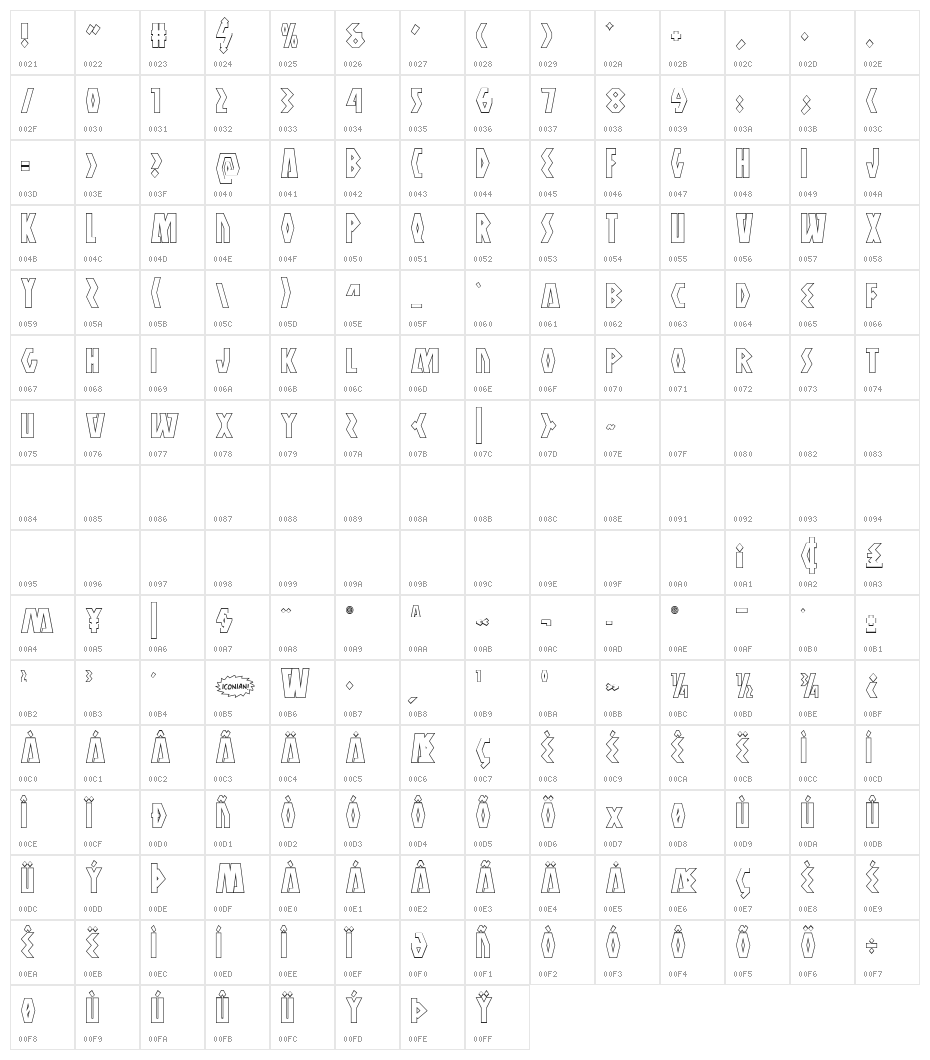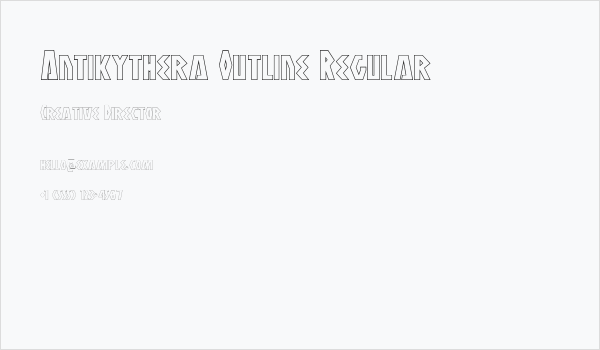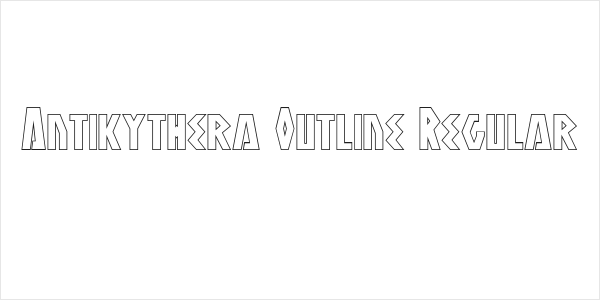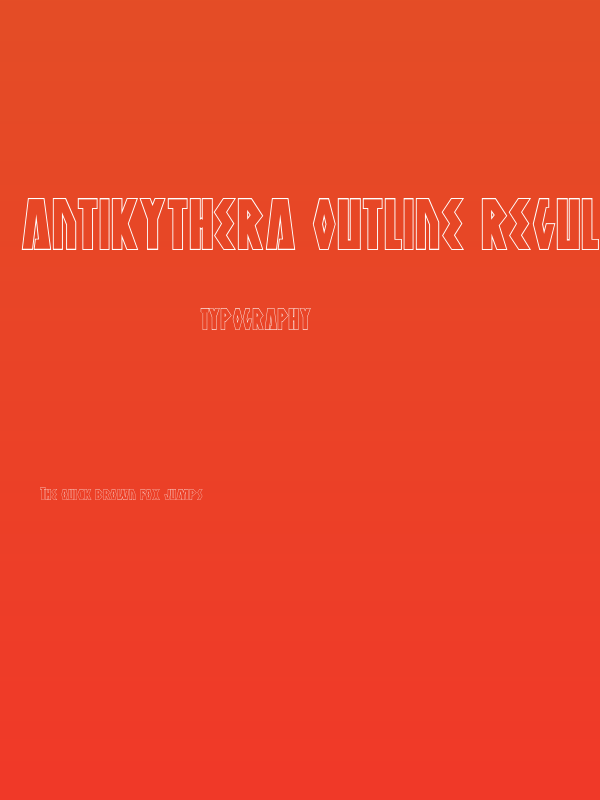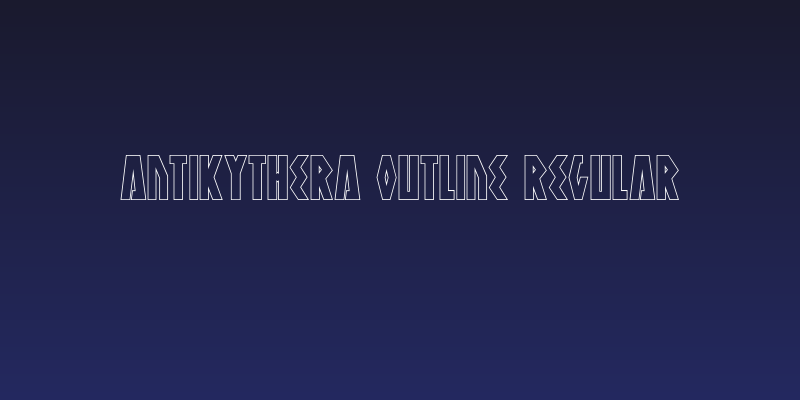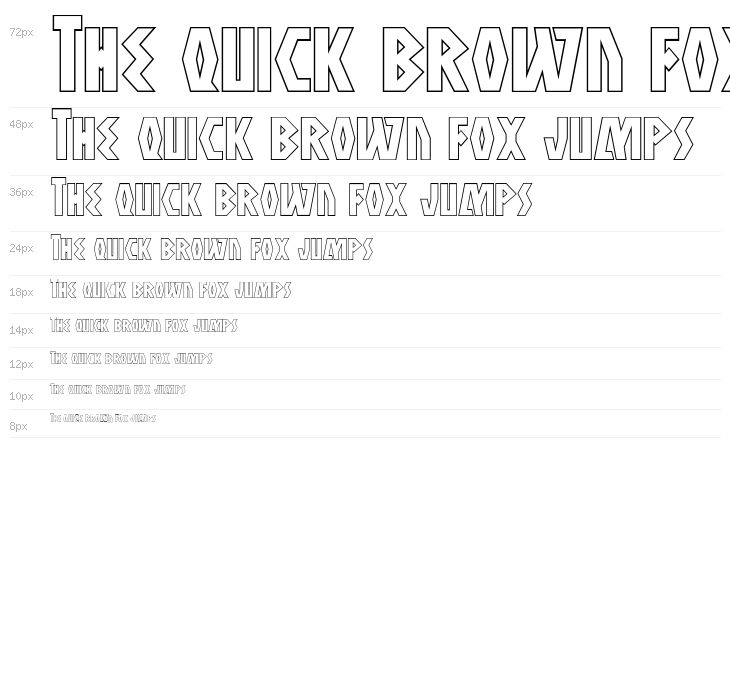
Antikythera Outline Regular Font
Antikythera Outline Regular Description
This font features a bold, geometric outline style that gives it a futuristic and dynamic appearance. The characters are constructed with sharp angles and straight lines, creating a sense of movement and energy. The uppercase and lowercase letters maintain a consistent design, with the uppercase being slightly more pronounced. Numbers and special characters follow the same angular theme, ensuring uniformity across the typeface. The outline nature of the font adds a unique dimension, making it stand out in any design. Its structured form and clear lines make it suitable for attention-grabbing headlines or creative projects that require a modern and edgy look.
Overall StyleFuturistic, Modern
Proposed ProjectsIdeal for sci-fi themed posters, video game titles, modern branding, and digital artwork.